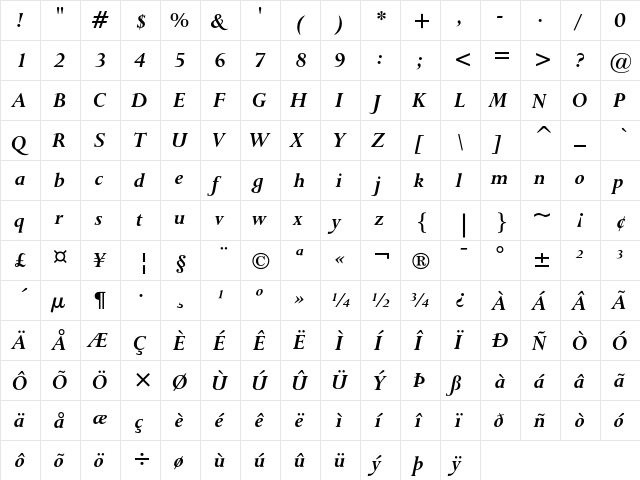
Lapidary 333 Bold Italic
Design Context for Lapidary 333 Typeface
Lapidary 333 is a composed and adaptable typeface that performs quietly and consistently across a wide range of design contexts. The slanted form adds forward momentum and visual energy. Its bold stroke weight gives it real presence on the page.
Pro Tip: Try Lapidary 333 for annotation and caption copy alongside an upright companion — the contrast in angle creates a dynamic but ordered typographic system.